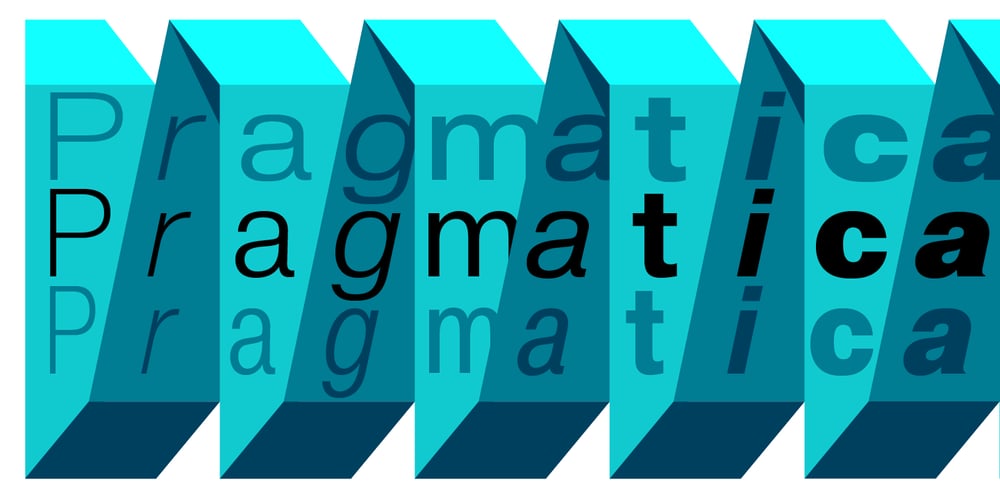
Pragmatica
Pragmatica font
Pragmatica Font Family was designed by Alexander Tarbeev, Vladimir Yefimov, Manvel Shmavonyan, Isabella Chaeva and published by ParaType. Pragmatica contains 44 styles and family package options. Pragmatica emerged as a spin-off of the Encyclopedia-4 typeface created by the Polygraphmash type design bureau in 1987. Inspired by Helvetica (Neue Haas Grotesk) from the Haas typefoundry in 1957, designed by Eduard Hoffman and Max Miedinger, Pragmatica builds upon 19th-century Grotesque designs, introducing a new standard of mathematical precision to sans serif typography.Pragmatica has found widespread use across diverse applications, including magazines, books, advertising, and headlines, owing to its versatile and enduring design principles.Initially released in 1989 by Vladimir Yefimov at Paratype (ParaGraph), Pragmatica comprised four core styles. In 2003, Olga Chaeva expanded the family with eight additional styles. Condensed variations were introduced between 1993 and 2004 through collaboration among Vladimir Yefimov, Alexander Tarbeev, Manvel Shmavonyan, and Dmitry Kirsanov. Further extensions to the family in 2004 by Olga Chaeva and Manvel Shmavonyan introduced extended styles.Pragmatica main characteristics:- 3 widths: Regular, Condensed, Extended- 44 styles in total- 600+ glyphs in each style- 18 OpenType features, including Small Capitals- Extended Latin and Cyrillic supportAnd if you need font files in different formats or want to try this font, just drop us a line at info@paratype.net, and we’ll work something out.